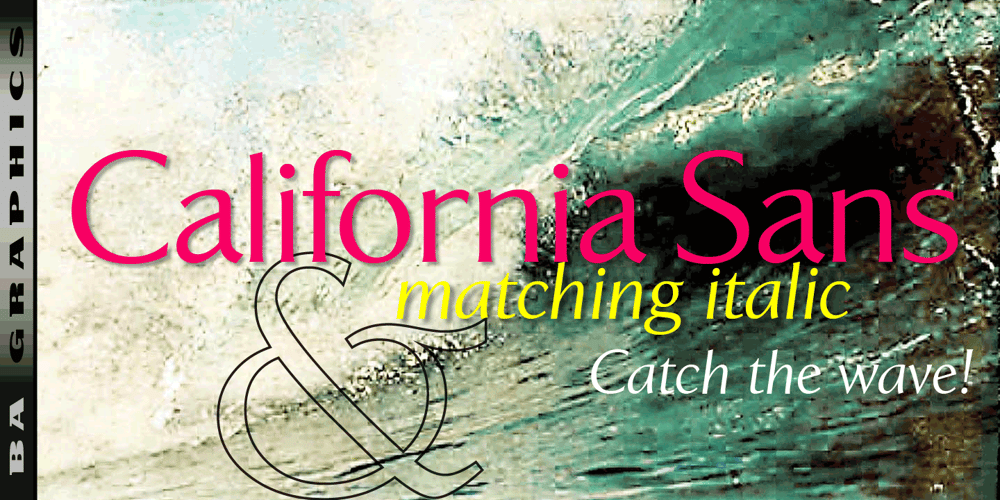
California Sans Font Family was designed by Bob Alonso and published by BA Graphics. California Sans contains 2 styles and family package options. California Sans designed as a beautiful easy reading text face also works great in Headlines. It also has a matching drawn Italic which makes a great combination for all your needs. Even as a stand alone Italic font it works in so many designs.